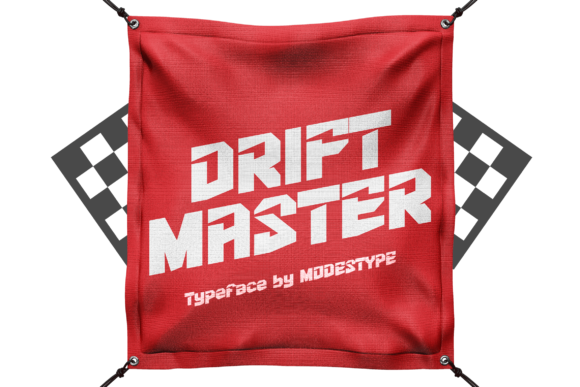
Rev Up Your Designs with the Drift Master Font
Have you ever been stuck on a design project, scrolling through font options, and then suddenly, the perfect one pops up? That’s exactly what happened when I stumbled upon the Drift Master Font. Its sleek, futuristic vibe instantly gave me the creative spark I needed to take my project to the next level.
The Drift Master Font is specifically designed for those bold, eye-catching designs that grab attention. Whether it’s a YouTube thumbnail, a social media cover, or a movie title, this font is sure to make your design stand out from the crowd. As a designer, you know how valuable it is to have the right tools at your disposal. The Drift Master Font is that game-changing tool that will elevate your designs and leave a lasting impression.
Key Features of Drift Master Font
- Font Style: A bold, modern font with a unique blend of racing and drifting elements.
- Unique Characteristics: Features a distinctive design element that mimics the movement and speed of drifting, adding a dynamic touch to any text.
Drift Master Font Review
As a designer, I was excited to dive into the Drift Master Font and see what it has to offer. Here’s my honest review.
- The font’s unique, bold design is perfect for creating attention-grabbing headlines and titles.
- The weight of the font is consistent, making it easy to use in a variety of settings.
- The font is highly legible, even at smaller sizes.
- It’s great for use in digital media, such as websites and social media platforms.
- The font is not ideal for body text, as it can be quite overwhelming when used in large quantities.
- The font lacks a lighter weight option, which can limit its use in certain situations.
- It may not be the best choice for print materials, as the font’s bold design can be difficult to read in small print.
Overall, I think the Drift Master Font is a great addition to any designer’s toolkit. While it may have some limitations, its unique design and high legibility make it perfect for use in a variety of settings. I’d definitely recommend it for digital media and headline design.
Tips for Getting the Most Out of Drift Master Font
Experiment with different font sizes and styles to create a visually appealing design.
Pair Drift Master Font with other modern fonts for a unique and eye-catching look.
Use it to create attention-grabbing headlines and titles for your designs.
Drift Master Font is ideal for:
Creating modern and stylish logos.
Designing eye-catching social media graphics.
Developing professional and stylish business presentations.